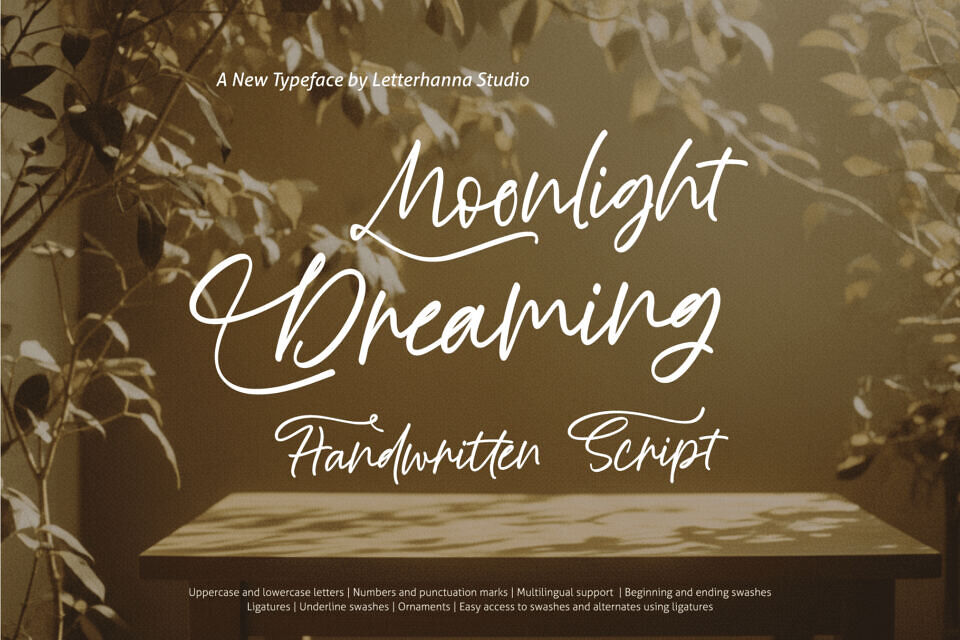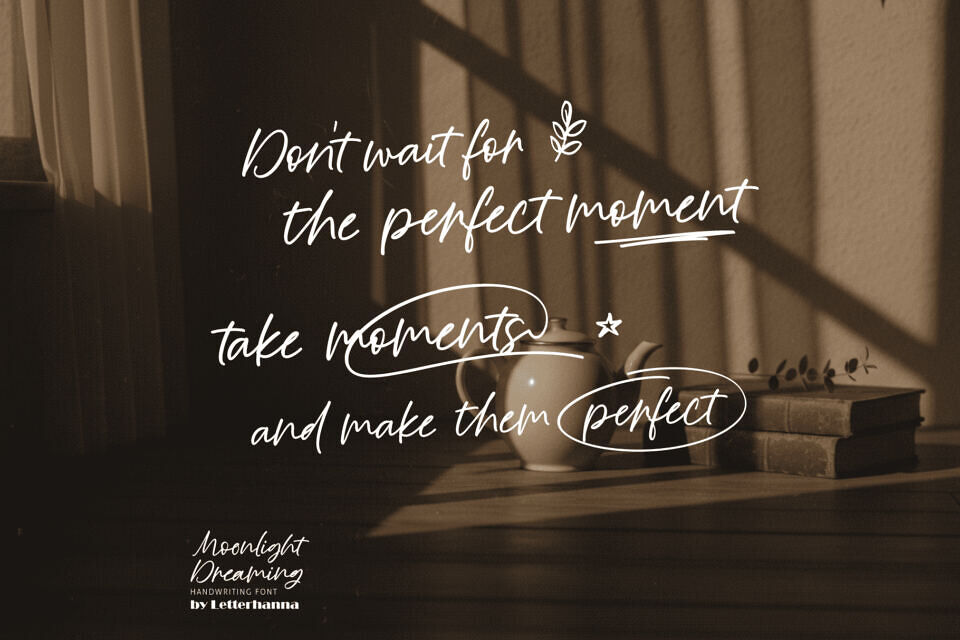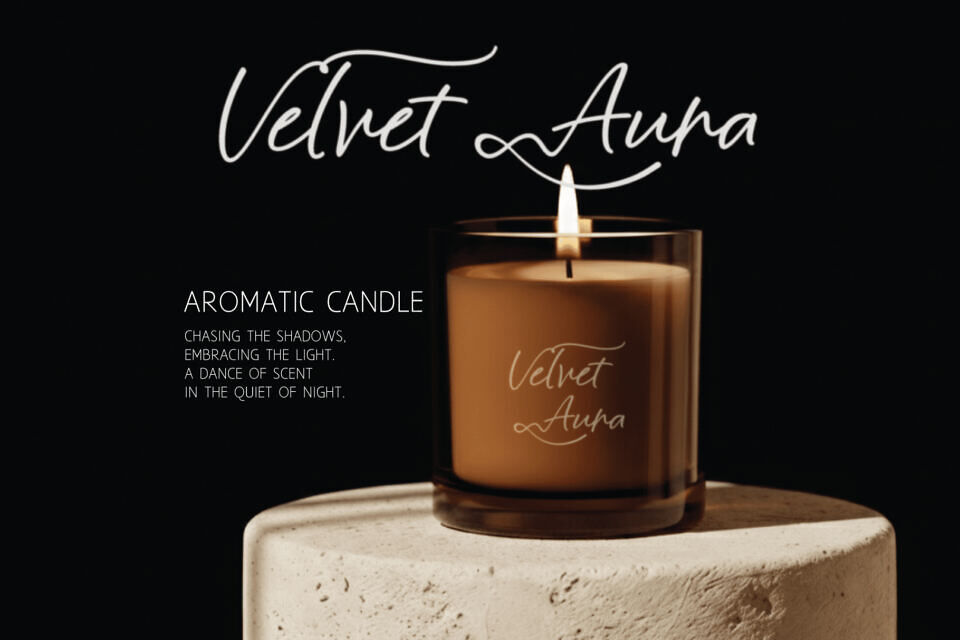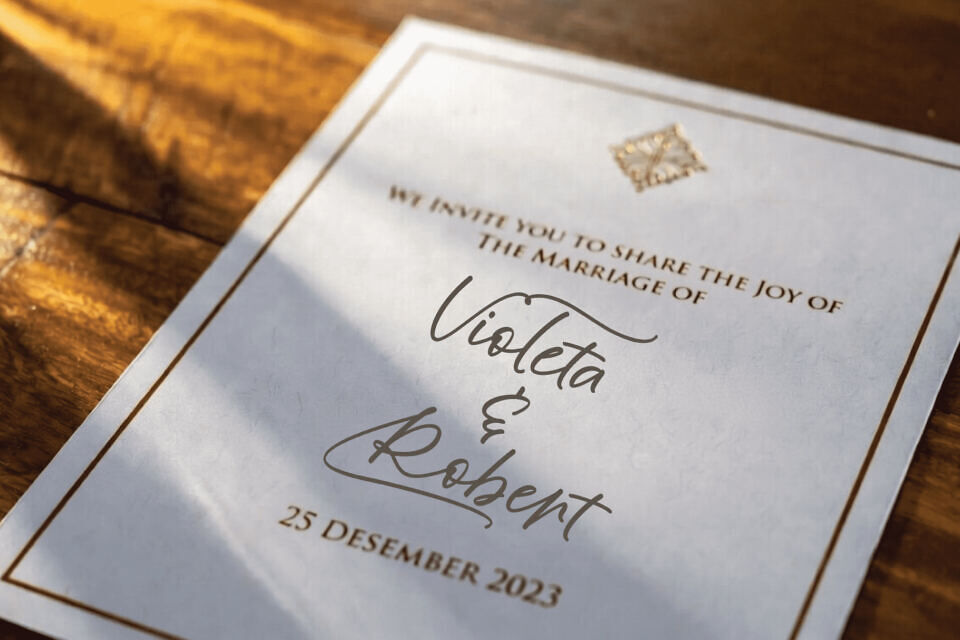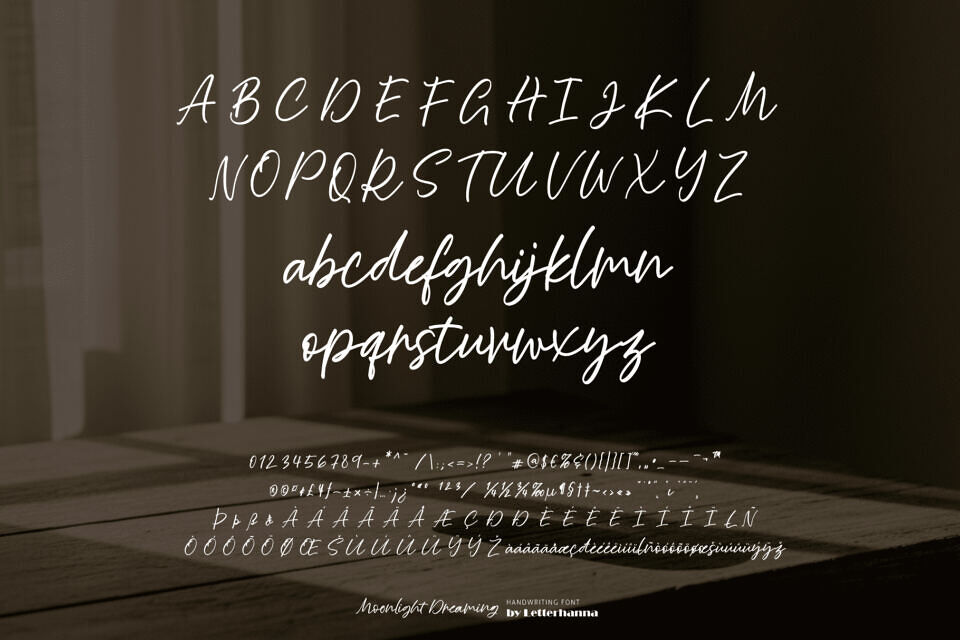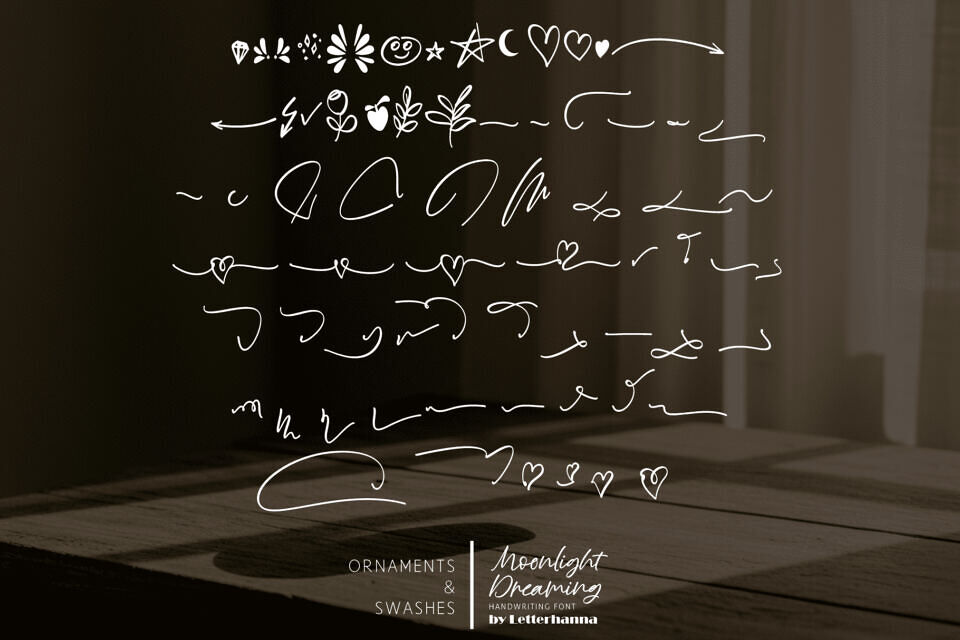
Moonlight Dreaming is a fluid and expressive handwritten script. This “new typeface” features a natural, organic flow characterized by elegant, looping ascenders and rhythmic terminal swashes that give it a personalized, hand-penned feel.
Its defining creative features include beginning and ending swashes, ligatures, underline swashes, and specialized ornaments, all of which are easily accessible through ligature features to create customized, artisanal typography. This font is a premier choice for romantic branding, lifestyle editorial headers, wedding stationery, and professional signature watermarks.